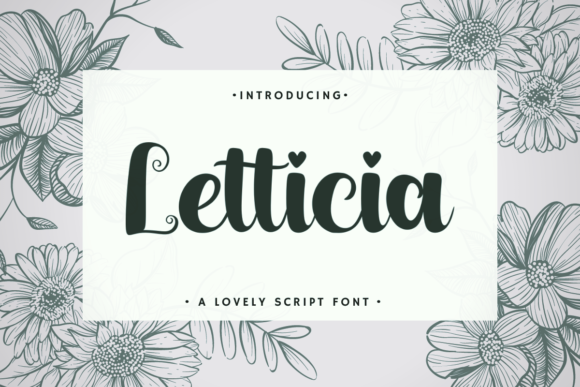
Letticia Font: The Elegant and Bold Script Font for Your Creative Projects
Letticia Font is an exquisite and versatile script font that has captured the hearts of designers and artists worldwide. Its elegant and bold style makes it an ideal choice for a wide range of creative projects, from wedding invitations and stationery art to social media posts and more. In this article, we’ll delve into the world of Letticia Font, exploring its features, uses, and benefits, as well as provide tips on how to make the most of this stunning font.
What is Letticia Font?
Letticia Font is a beautifully crafted script font that boasts an incredibly versatile style. Its elegant and bold design makes it perfect for adding a touch of sophistication and glamour to any project. Whether you’re looking to create stunning wedding invitations, eye-catching social media posts, or beautiful stationery art, Letticia Font is the perfect choice.
Features of Letticia Font
Letticia Font comes with a range of features that make it an exceptional choice for designers and artists. Some of its key features include:
- Elegant and bold script design
- Incredibly versatile style
- Perfect for wedding invitations, stationery art, social media posts, and more
- Easily customizable
- Supports multiple languages
Uses of Letticia Font
Letticia Font is an incredibly versatile font that can be used for a wide range of creative projects. Here are some of the most popular uses of Letticia Font:
- Wedding Invitations: Letticia Font is perfect for creating stunning wedding invitations that exude elegance and sophistication.
- Stationery Art: Add a touch of glamour to your stationery art with Letticia Font’s elegant and bold design.
- Social Media Posts: Create eye-catching social media posts that grab attention with Letticia Font’s versatile style.
- Logos and Branding: Use Letticia Font to create stunning logos and branding materials that reflect your brand’s personality.
Benefits of Using Letticia Font
There are many benefits to using Letticia Font for your creative projects. Here are some of the most significant advantages:
- Elegance and Sophistication: Letticia Font adds a touch of elegance and sophistication to any project.
- Versatility: Letticia Font’s versatile style makes it perfect for a wide range of creative projects.
- Customization: Letticia Font is easily customizable, allowing you to tailor it to your specific needs.
- Time-Saving: With Letticia Font, you can create stunning designs in a fraction of the time it would take with other fonts.
Tips for Using Letticia Font
Here are some tips for using Letticia Font to get the most out of this stunning font:
- Experiment with Different Sizes: Letticia Font looks great in a range of sizes, so don’t be afraid to experiment to find the perfect size for your project.
- Pair with Other Fonts: Letticia Font pairs well with other fonts, so try combining it with different fonts to create a unique look.
- Use it for Headings: Letticia Font is perfect for headings and titles, so use it to add a touch of elegance and sophistication to your project.
- Customize it: Don’t be afraid to customize Letticia Font to fit your specific needs.
Letticia Font is an exquisite and versatile script font that is perfect for a wide range of creative projects. Its elegant and bold design makes it an ideal choice for adding a touch of sophistication and glamour to any project. With its range of features, uses, and benefits, Letticia Font is a must-have for designers and artists worldwide.
- What is Letticia Font? Letticia Font is an elegant and bold script font that is perfect for a wide range of creative projects.
- What are the features of Letticia Font? Letticia Font comes with a range of features, including an elegant and bold script design, incredibly versatile style, and support for multiple languages.
- What are the uses of Letticia Font? Letticia Font can be used for a wide range of creative projects, including wedding invitations, stationery art, social media posts, and more.
- What are the benefits of using Letticia Font? The benefits of using Letticia Font include elegance and sophistication, versatility, customization, and time-saving.